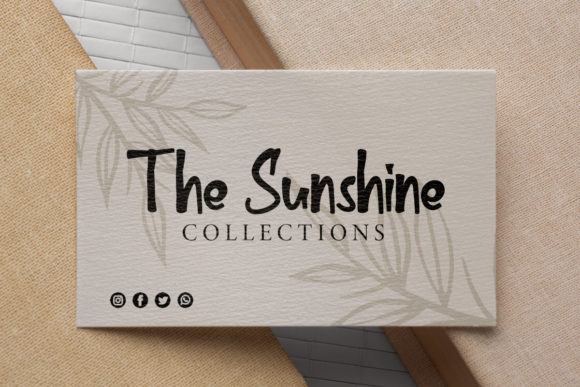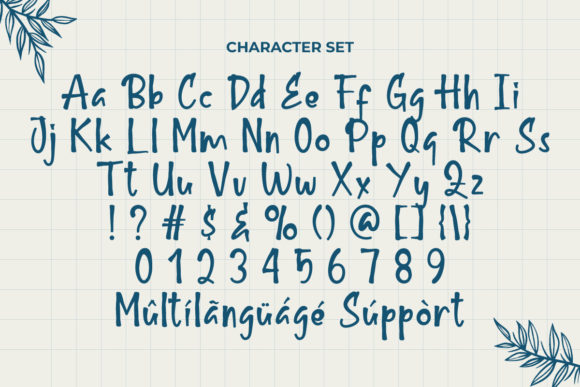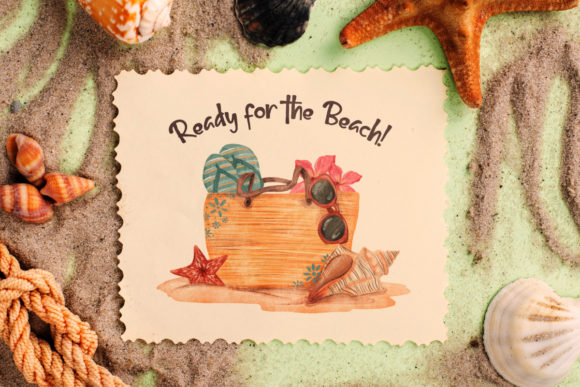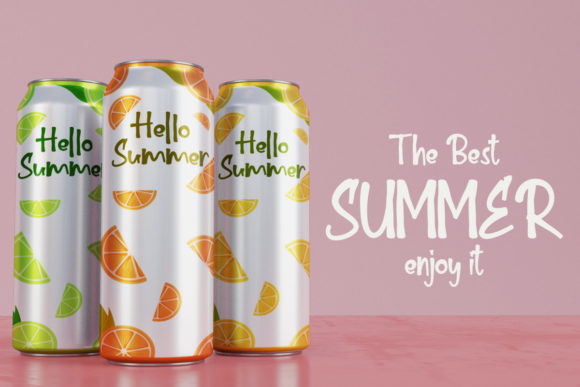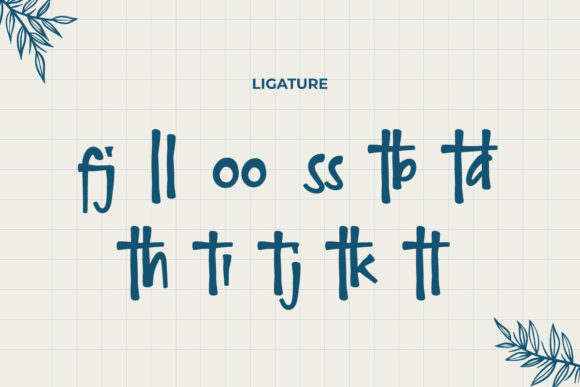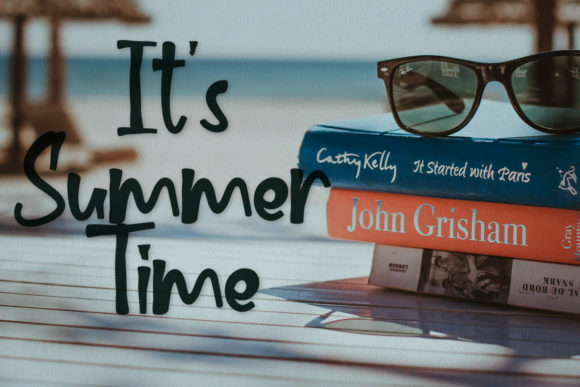
There’s something special about the feeling of sitting down with a cup of coffee, a blank sheet of paper, and a pen in hand. As designers, we’ve all been there – brainstorming ideas, experimenting with typography, and bringing our creative visions to life. But sometimes, it’s the smallest details that make the biggest impact. Take, for instance, the elegant curves and fluid lines of the Bright Summer Font.
This beautiful font is designed to evoke the carefree spirit of a summer day, and its versatility makes it perfect for a wide range of designs, from wedding invitations to business cards. Whether you’re looking to add a touch of whimsy to your branding or create a romantic atmosphere for a special occasion, the Bright Summer Font is sure to impress.
Bright Summer Font Key Features
- Unique Characteristics: Bright Summer Font features a unique blend of modern and vintage elements, with a warm and sunny feel that’s perfect for summer-themed designs.
Bright Summer Font Review
I recently had the chance to work with the Bright Summer font, and I must say, it’s a lovely addition to any design project. ✨ The font’s playful, carefree vibe is perfect for capturing the essence of summer.
- Unique Character Set: Bright Summer comes with a range of unique characters and symbols that add to its summer theme, making it a great choice for projects that require a little extra flair.
- Smooth Typography: The font’s typography is smooth and easy to read, even at smaller font sizes, which is a must-have for any design project.
- Customizable: Bright Summer can be easily customized to fit your project’s specific needs, whether it’s a logo, branding, or even a website.
- Limited Font Sizes: Bright Summer seems to perform best at larger font sizes, so if you’re working on a project that requires smaller font sizes, you may notice some issues.
- Not Ideal for Body Text: While Bright Summer is perfect for headings and titles, it may not be the best choice for body text due to its playful, cursive style.
Bright Summer is a fantastic addition to any design project that requires a touch of summer magic. While it may have some limitations, its unique character set and smooth typography make it a great choice for projects that need a little extra flair.
For a cohesive look, pair the Bright Summer Font with pastel colors and playful graphics.
Use the Bright Summer Font to create eye-catching headings and titles in your designs.
Use the Bright Summer Font to create engaging headings, titles, and captions in your presentations and documents.
The Bright Summer Font is ideal for:
Summer-themed designs, such as beach party invitations and pool party flyers.
Children’s books and educational materials.
Creative and playful branding for businesses and organizations.
Wedding invitations and stationery with a summer wedding theme.
Pacifico Font is a beautiful, elegant script font perfect for creating a relaxing and serene atmosphere. It is ideal for use in branding, packaging, and advertising materials where a touch of sophistication is required.
Compared to Bright Summer Font, Pacifico Font has a more refined and luxurious feel, making it suitable for high-end brands and luxury products.
Great Vibes Font is a modern, playful script font that exudes a sense of fun and energy. It is perfect for use in digital media, social media graphics, and promotional materials where a lively and engaging tone is required.
Q: What is the recommended font size for optimal readability with Bright Summer Font?
The recommended font size for optimal readability with Bright Summer Font is between 12 and 14 points for body text. For headings and titles, you can use larger font sizes, such as 18 to 24 points, to create visual hierarchy and emphasis.